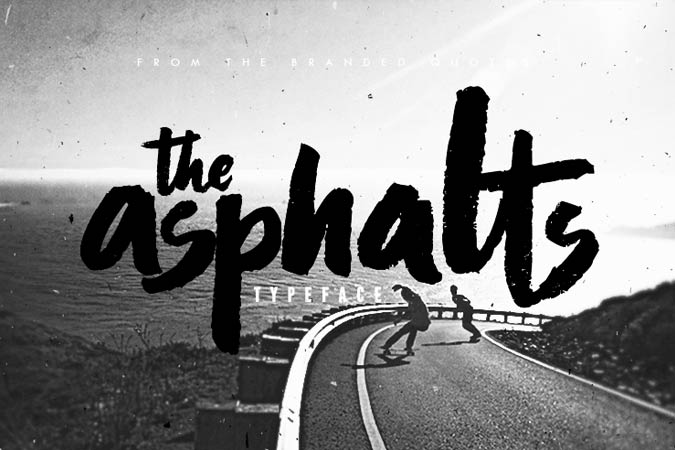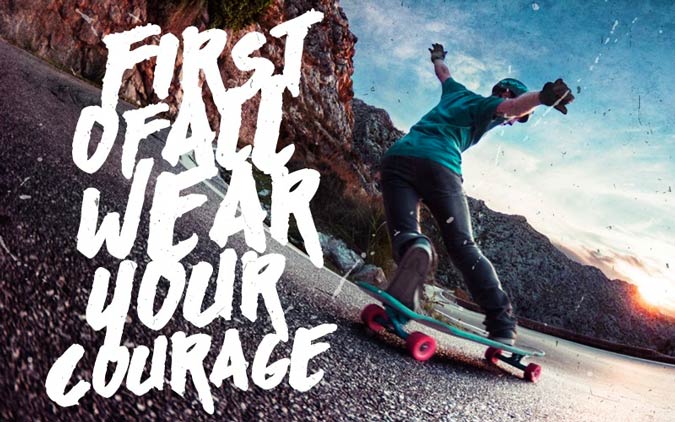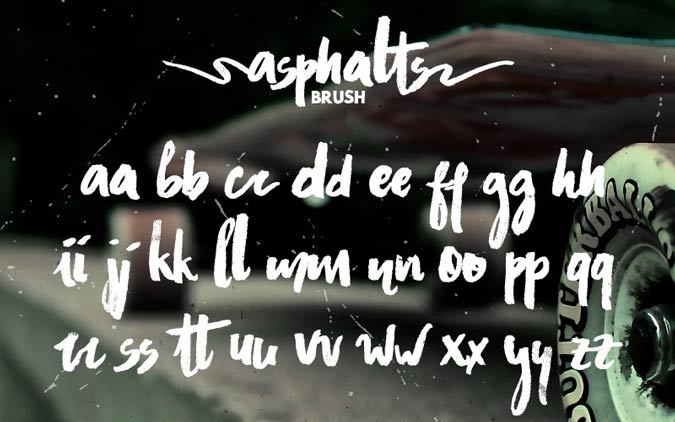
Asphalts Brush is a grungy and rough typeface that was written with heavy brush strokes. You can trust this font to bring out the expressiveness of the typography. Besides that this font is also great for logo designs, paired with fine san serif text on the side.